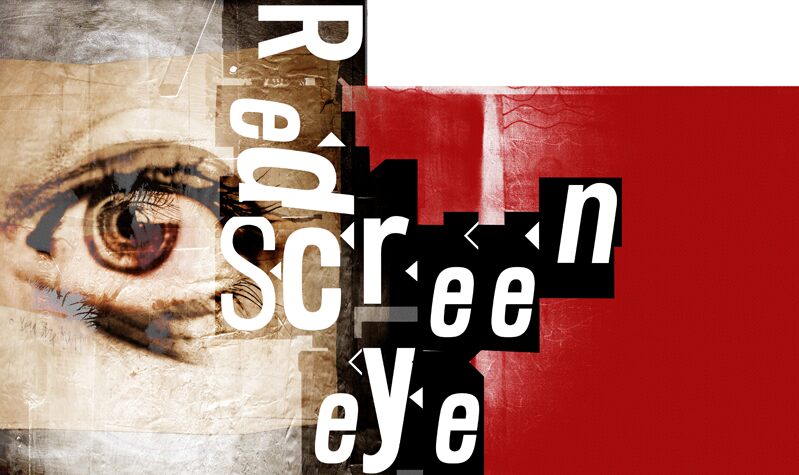
Red Screen Eye
Red Screen Eye, a creation by junkohanhero, is a captivating display font that demands attention. With its distorted and negative style, it is ideal for projects in need of a bold and edgy design.
Its condensed width adds to its uniqueness, making it perfect for eye-catching headlines, album covers, or movie posters.
Let Red Screen Eye elevate your creative vision with its unconventional and striking aesthetic.